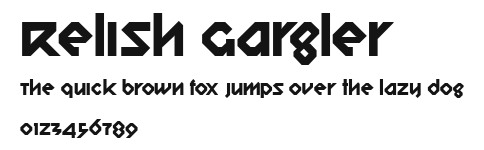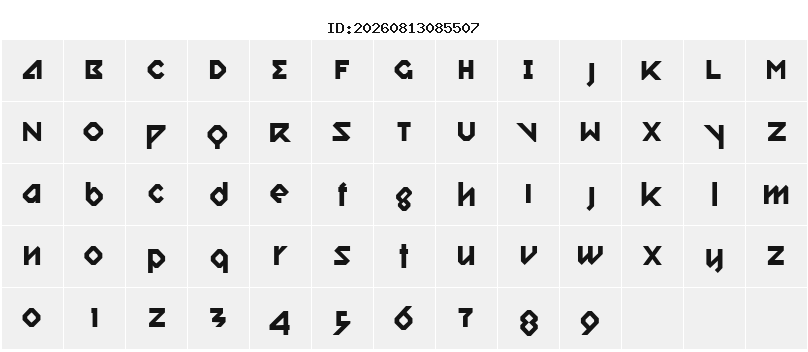
Relish Gargler Preview
• Font Name: Relish Gargler
• Full Font Name: Relish Gargler
About Relish Gargler.ttf
Relish Gargler.ttf is a modern, elegant sans-serif font designed for ultimate readability and visual harmony. Perfect for branding, headlines, web design, and print materials.